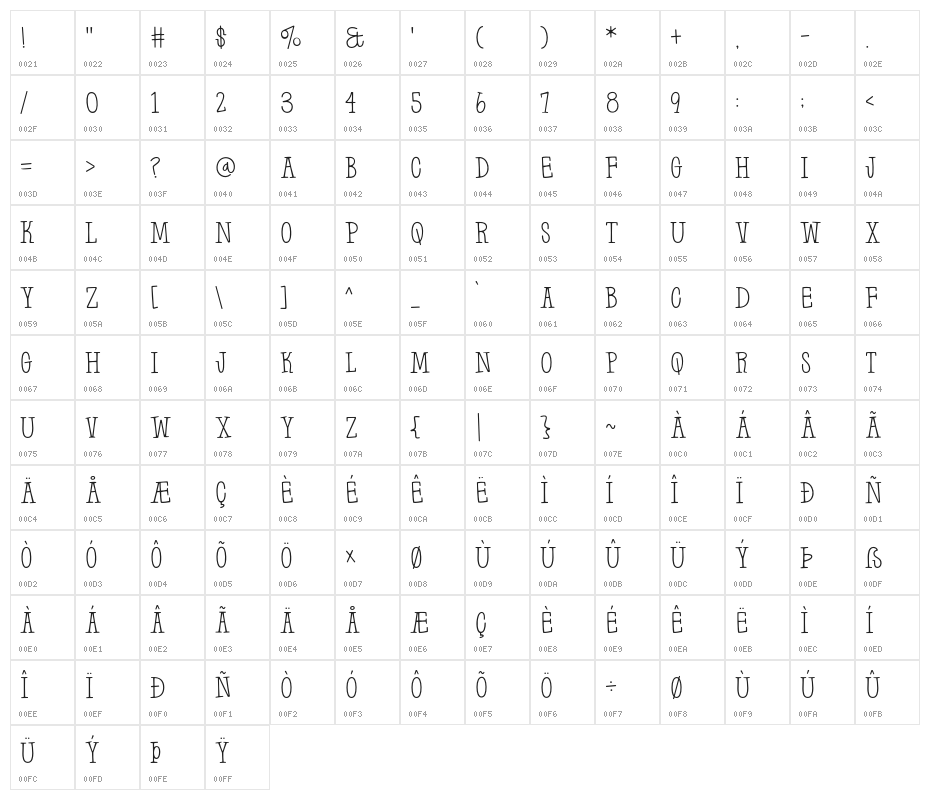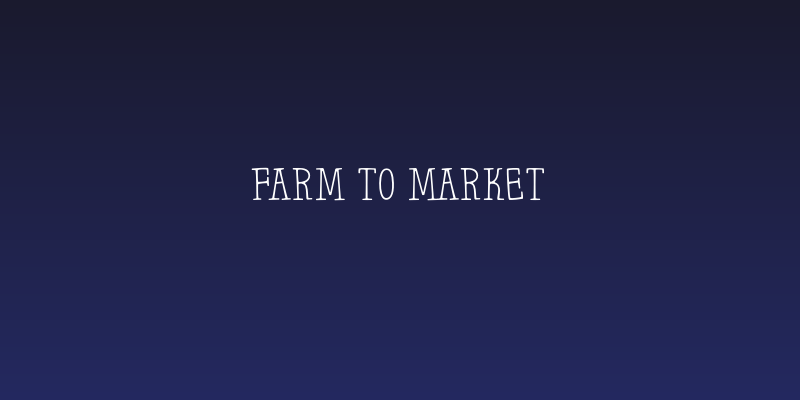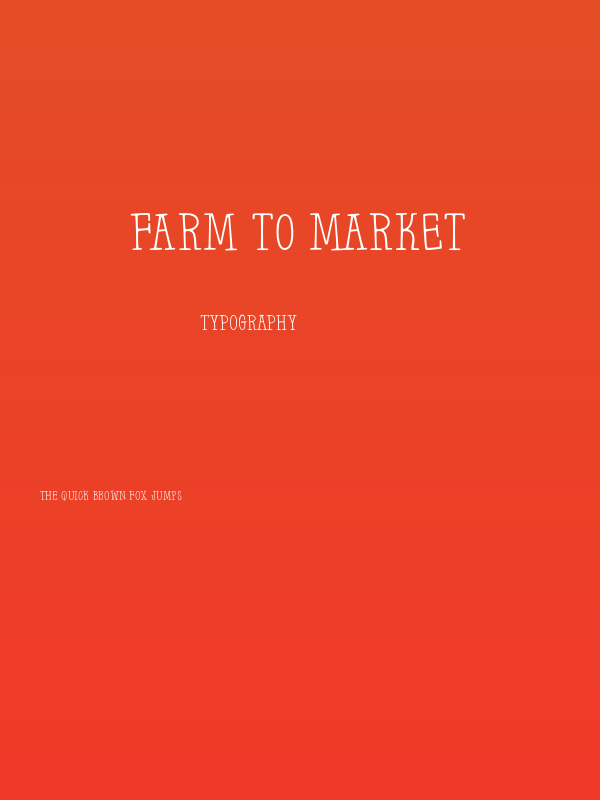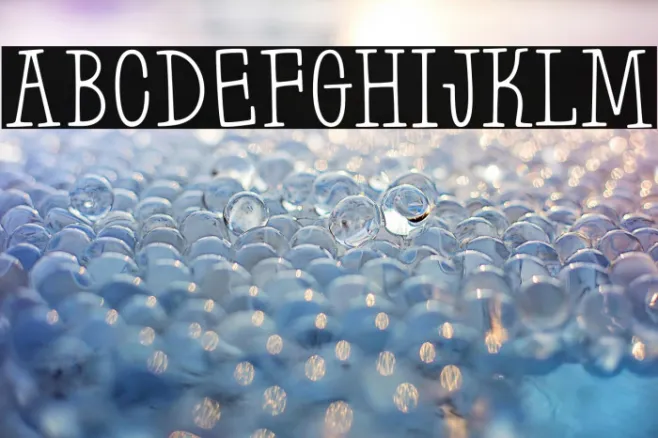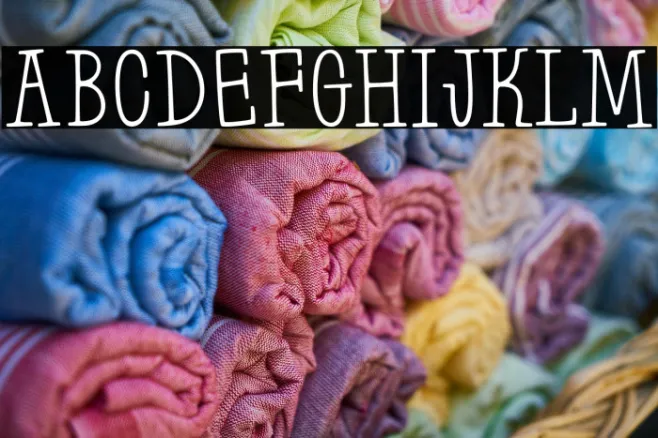
Farm to Market Font
Farm to Market Description
This font features a playful and slightly whimsical style, characterized by its tall, narrow letters with subtle curves and a hand-drawn appearance. The uppercase and lowercase letters maintain a consistent height, contributing to a uniform look. The numerals and special characters share the same quirky design, making them blend seamlessly with the alphabet. The strokes are moderately thick, providing good readability while retaining a casual, friendly vibe. This font is perfect for projects that require a touch of personality and charm.
| Proposed Projects | Ideal for children's books, greeting cards, playful branding, and casual invitations. |